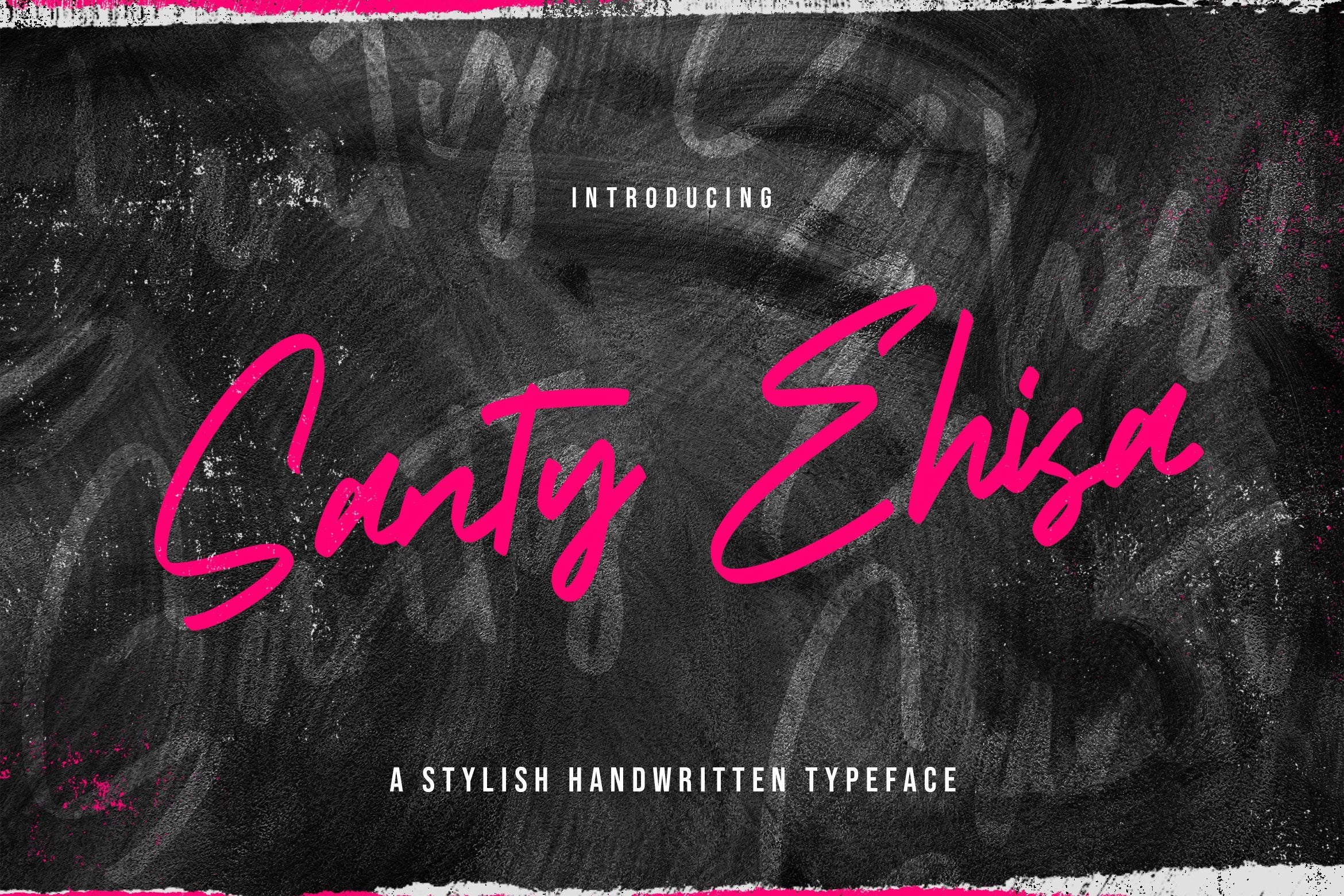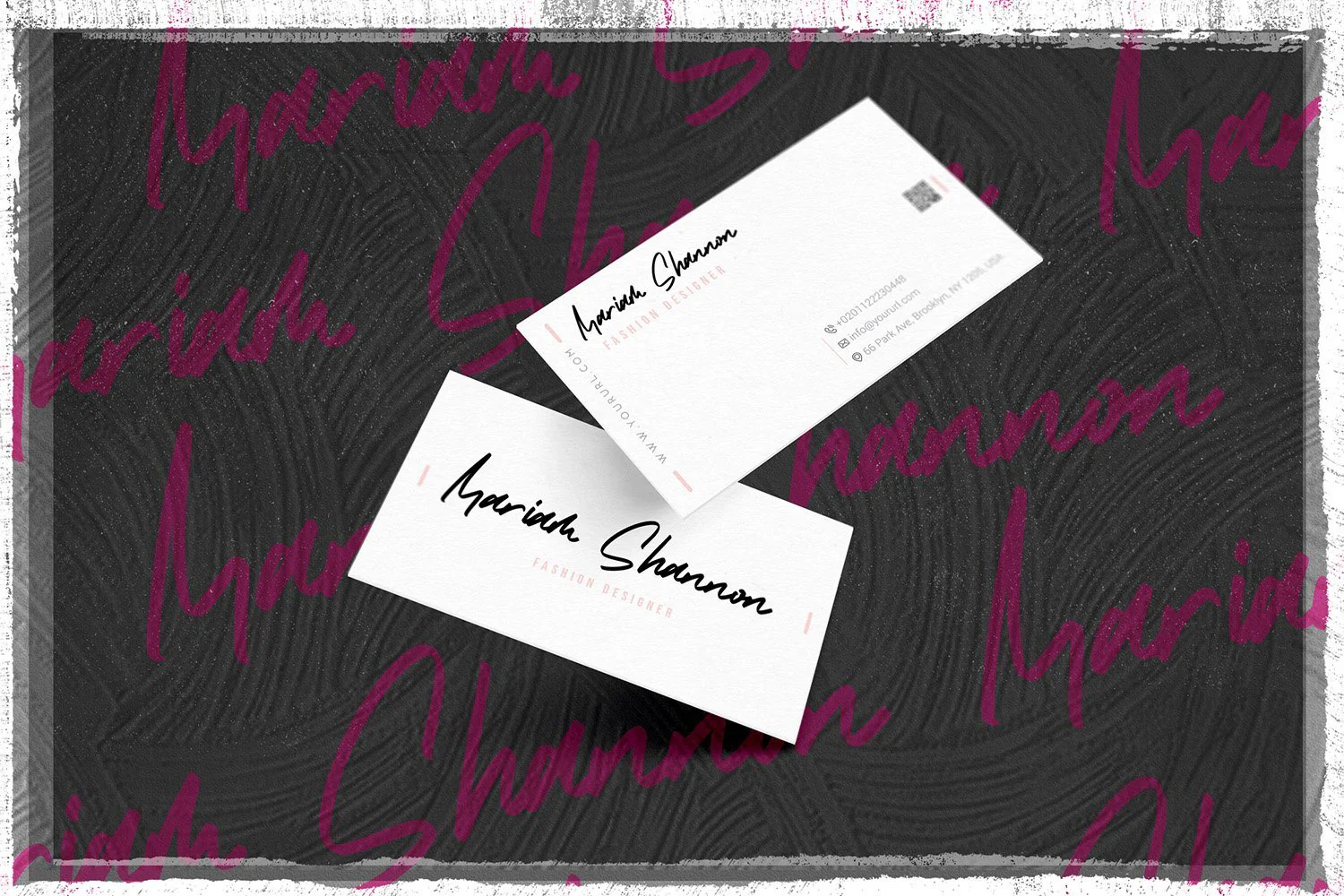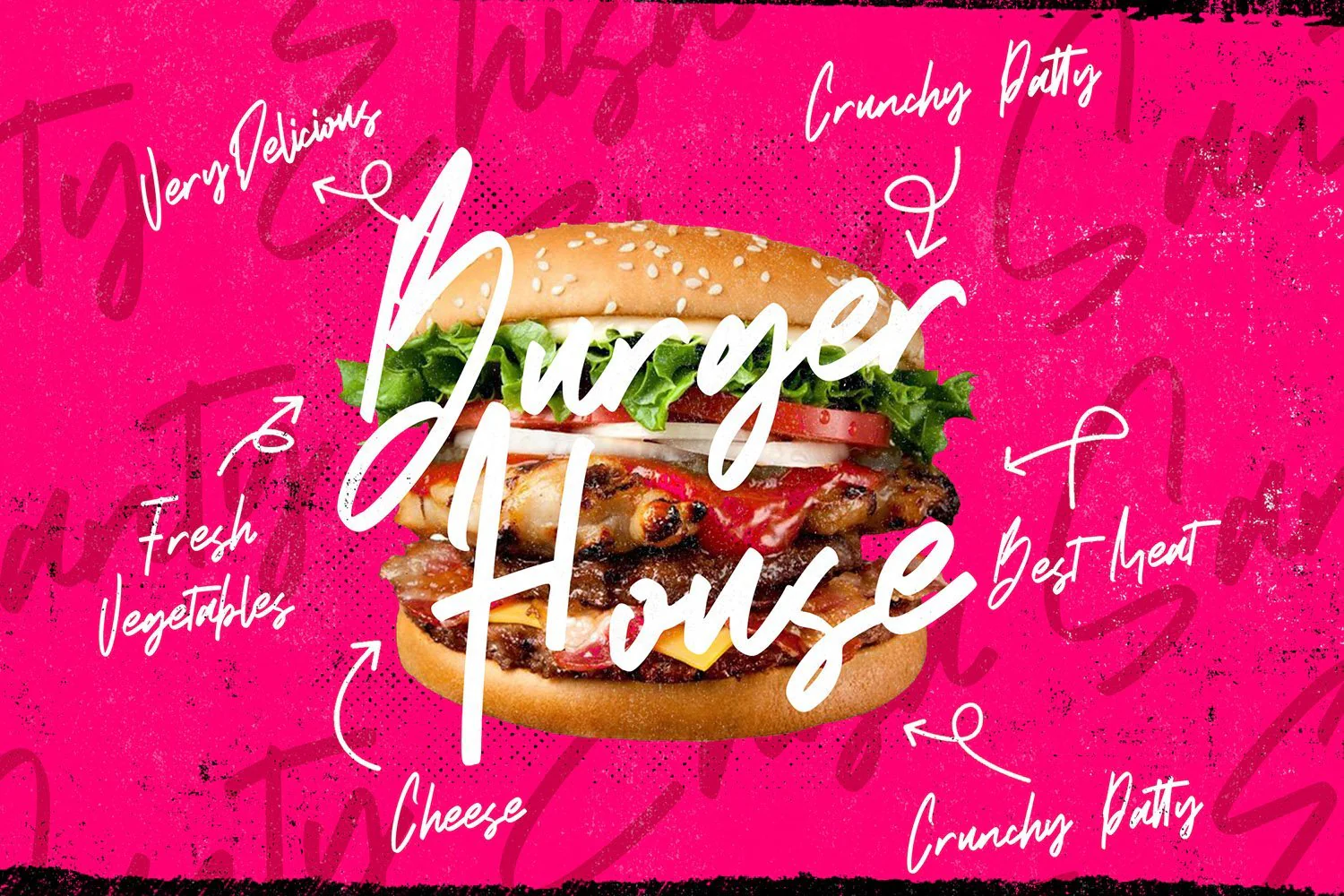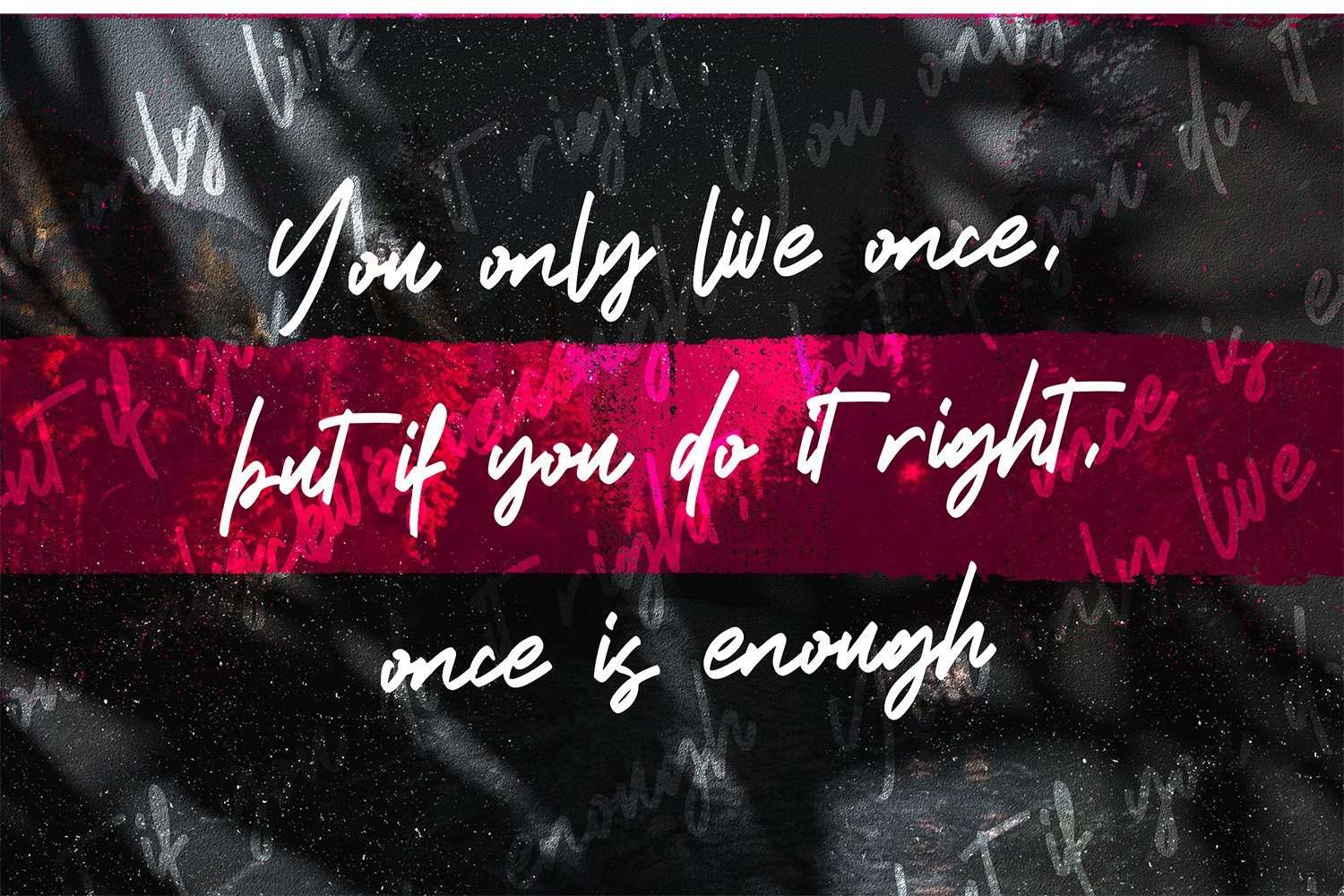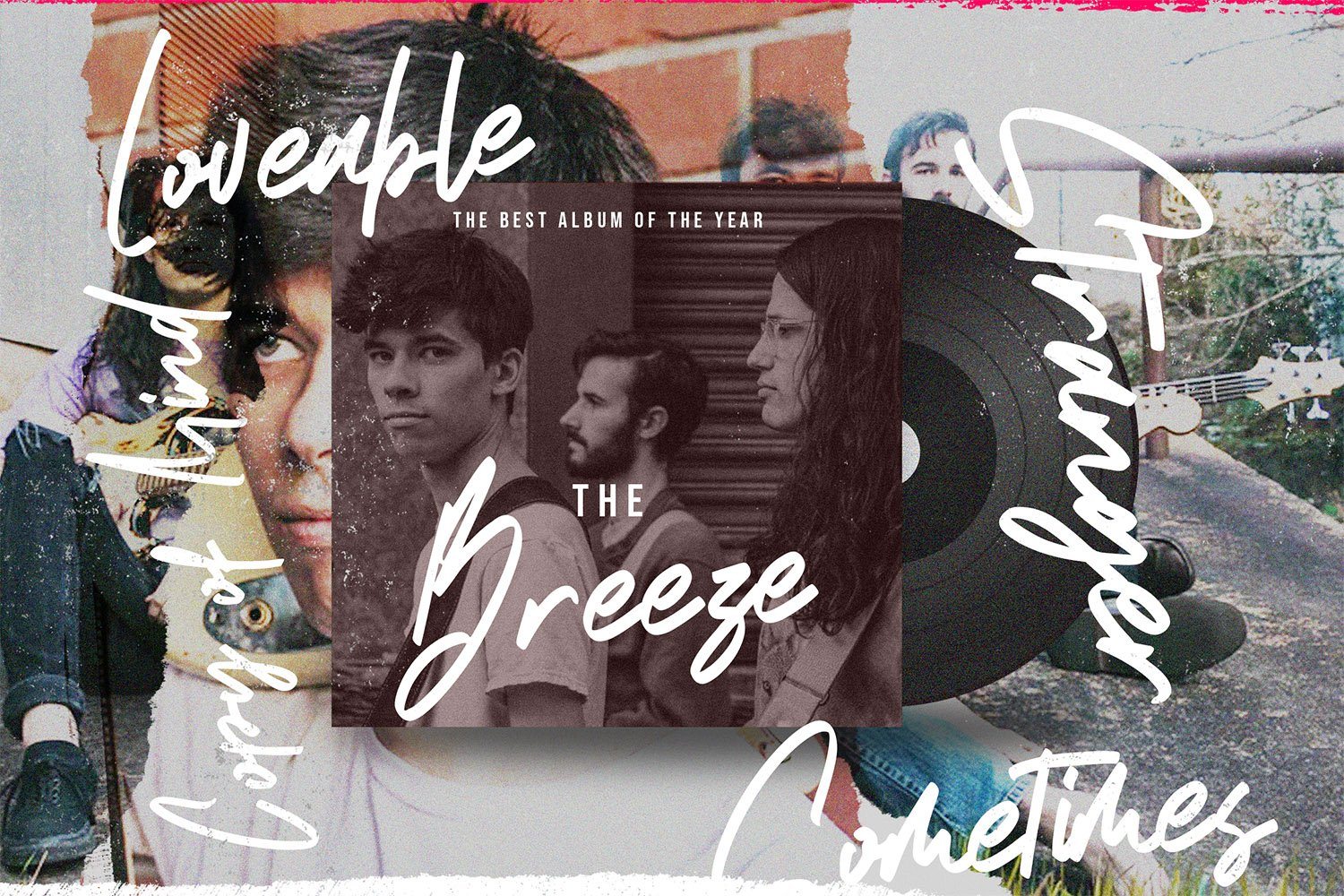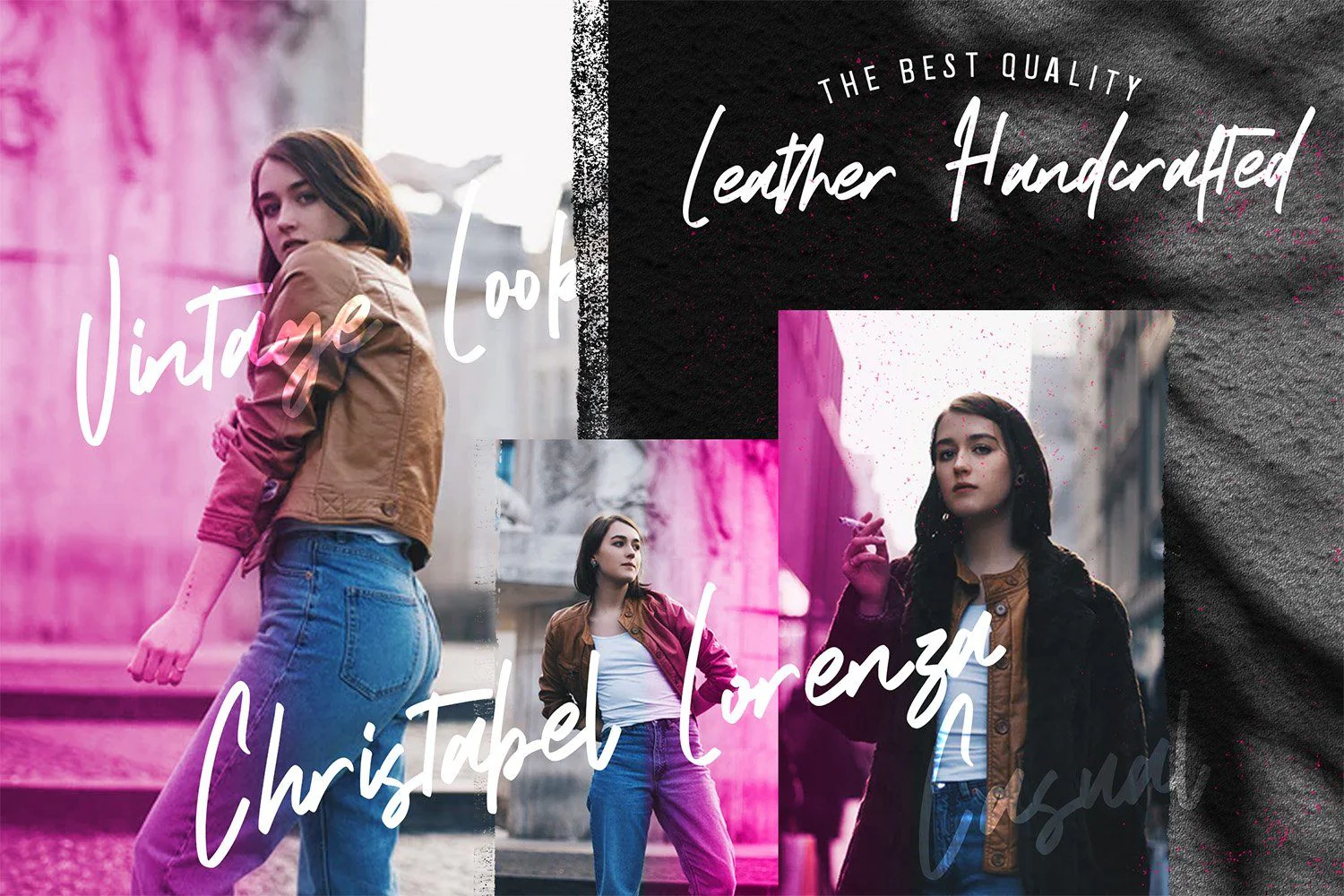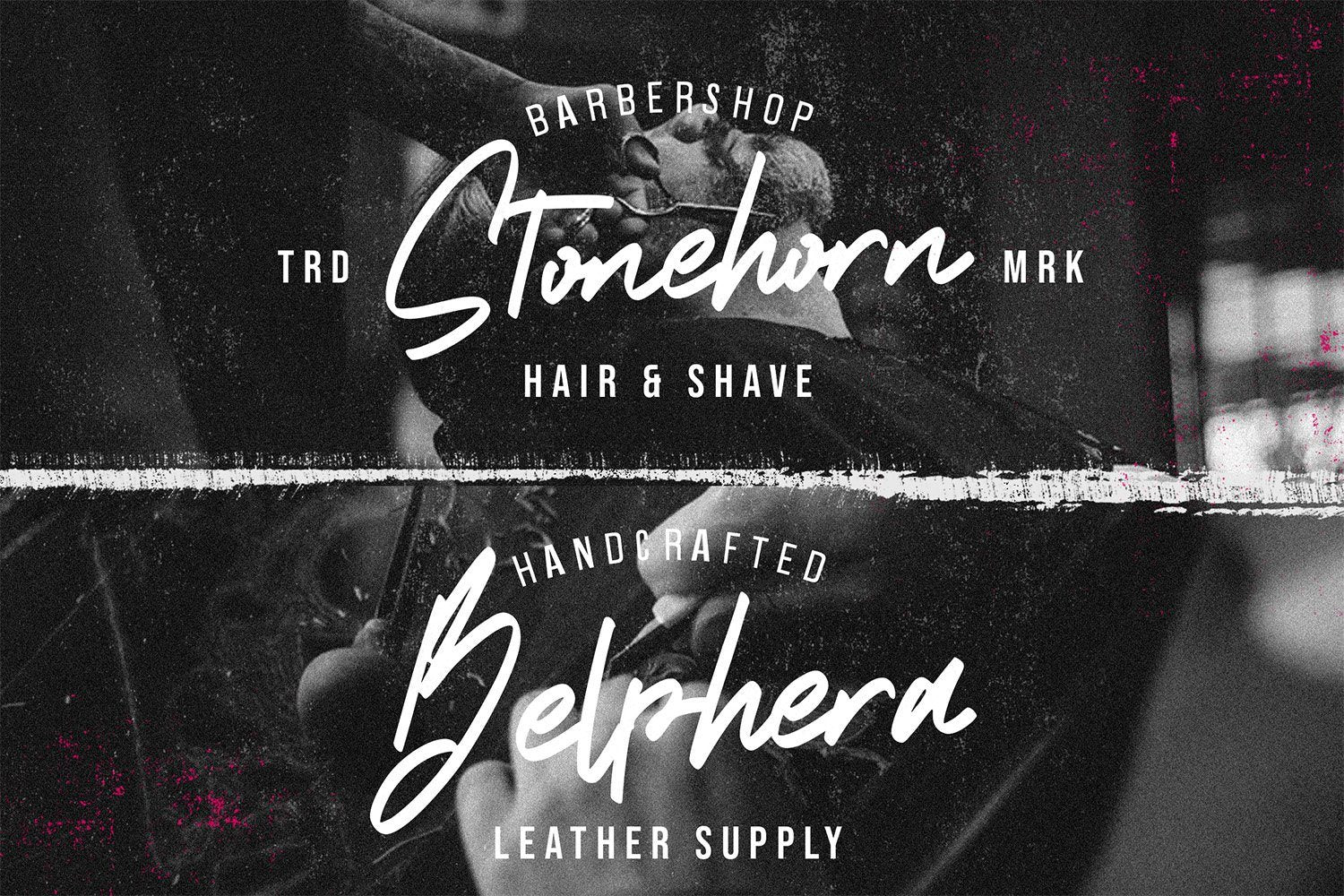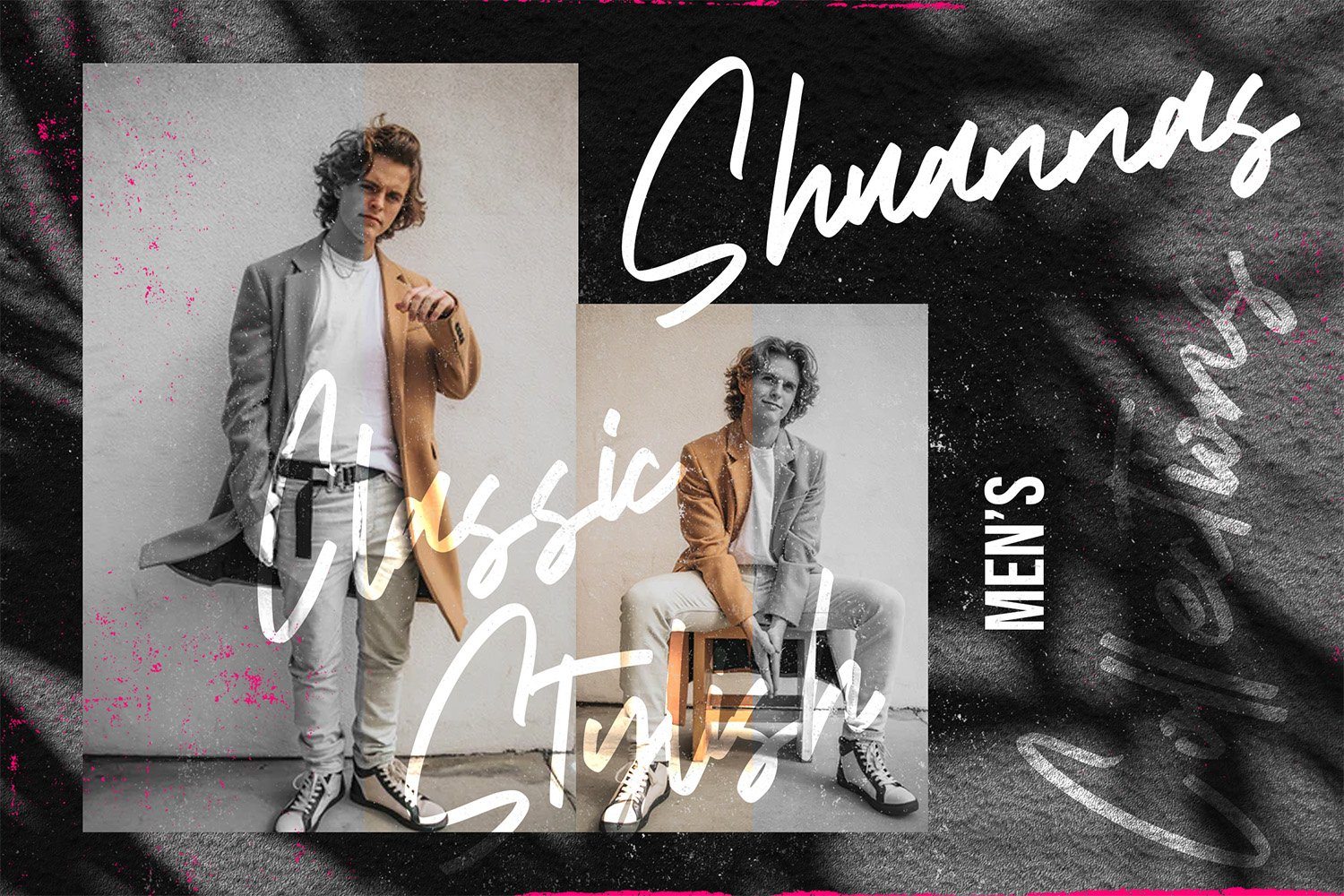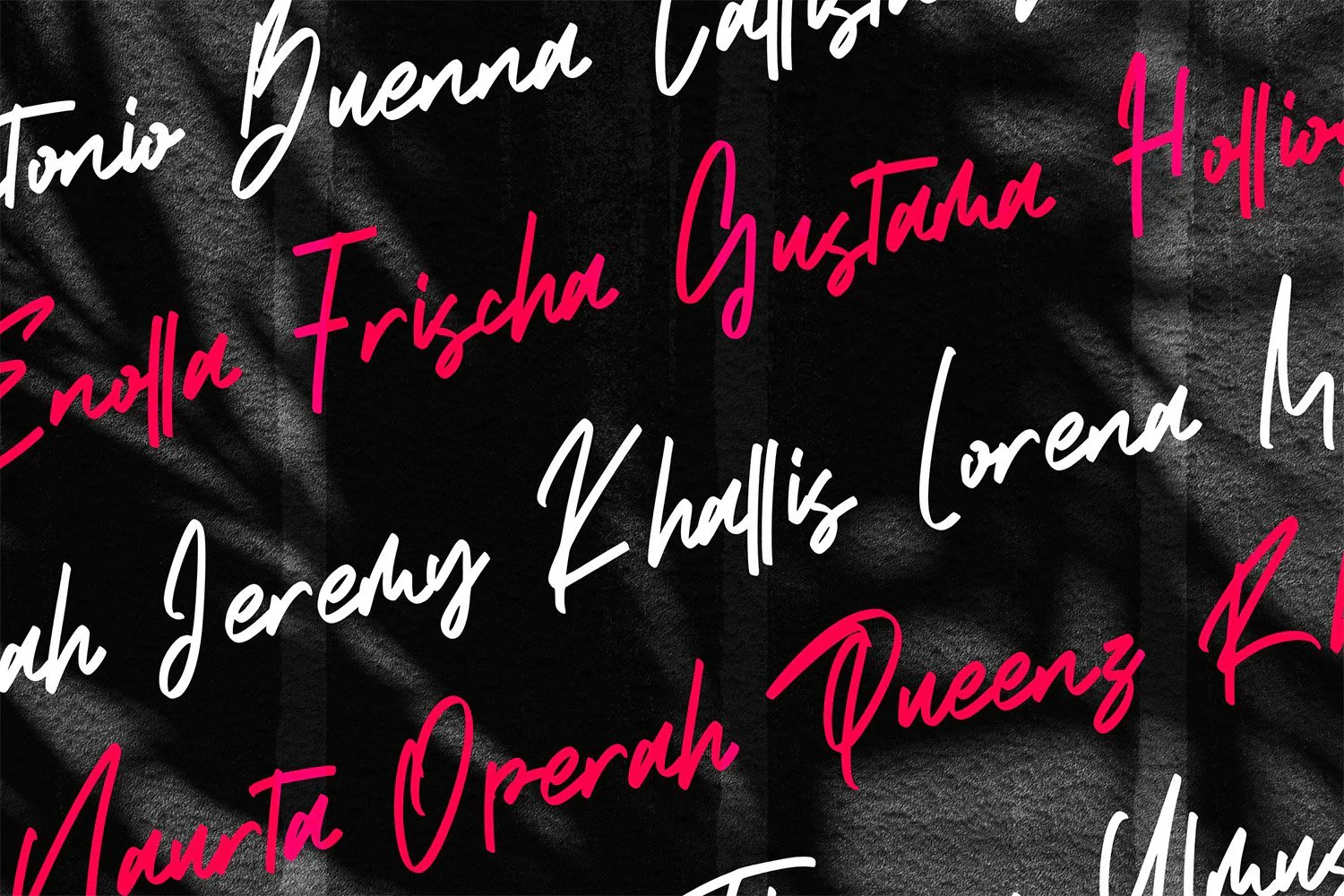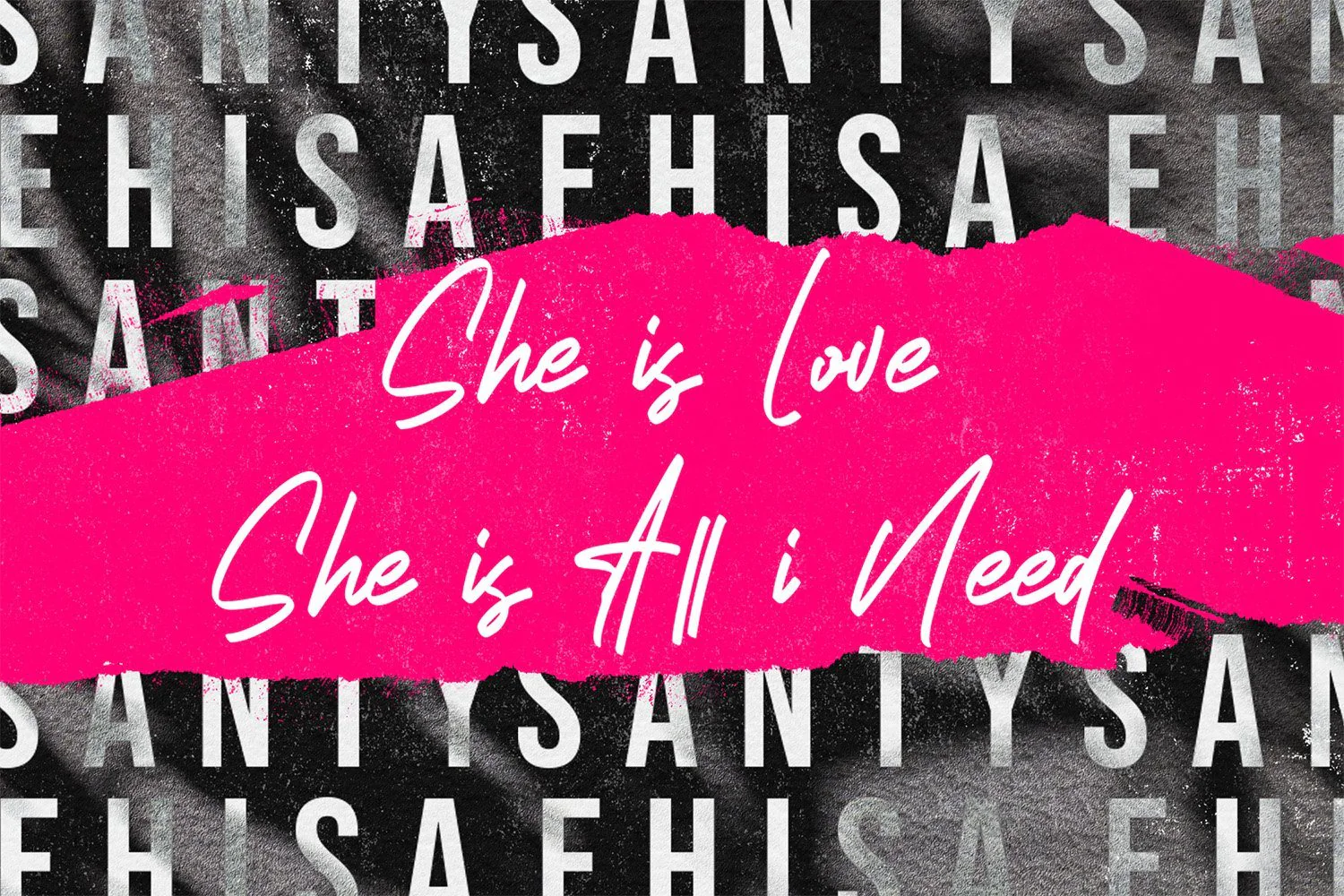
Santy Ehisa - Stylish Script Font
Introducing Santy Ehisa - Stylish Script Font
Santy Ehisa is a Stylish Script Font with Handwritten Style. The Santy Ehisa font made with digital brush pen strokes that making this font look authentic. This font is perfect for fashion brand, wedding invitation, business card, logo brand, signature, and then calligraphy.
This Font contains Elegant, Stylish, Creative and has a Unique Concept.
Introducing Santy Ehisa - Stylish Script Font
Santy Ehisa is a Stylish Script Font with Handwritten Style. The Santy Ehisa font made with digital brush pen strokes that making this font look authentic. This font is perfect for fashion brand, wedding invitation, business card, logo brand, signature, and then calligraphy.
This Font contains Elegant, Stylish, Creative and has a Unique Concept.